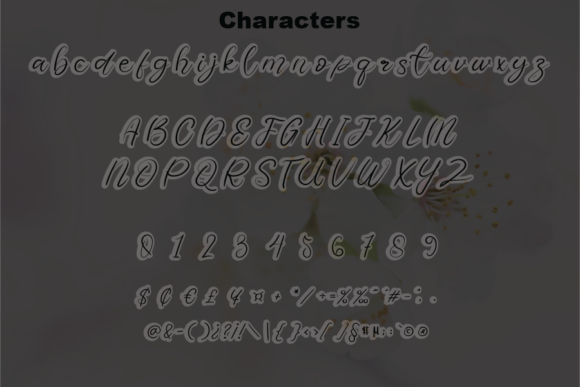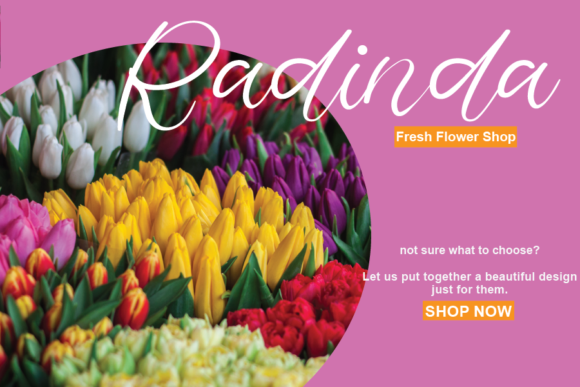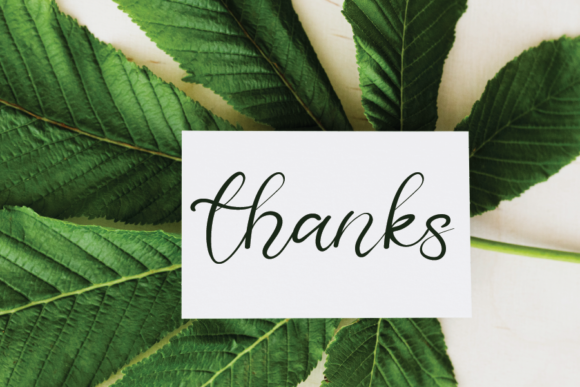
The Beauty of Rustic Fonts: A Designer’s Delight
I’ll never forget the time I was working on a project for a client’s wedding invitation. I had the design almost perfect, but something was missing – the right font. I scoured the internet, tried out countless fonts, but none seemed to fit the rustic, whimsical vibe I was going for. That’s when I stumbled upon the Beautiful Rustic font. It was love at first sight! ✨
An Honest Review of Beautiful Rustic
- ✨ Cute and flowing handwritten style: Beautiful Rustic has a unique, organic feel that adds a touch of warmth to any design.
- ✅ Highly versatile: This font can be used for a wide range of projects, from wedding invitations to craft tutorials.
- 💫 Easy to read: Despite its whimsical nature, Beautiful Rustic is surprisingly legible, even at smaller font sizes.
While Beautiful Rustic is an amazing font, it’s not perfect. Here are a few things to keep in mind:
- ⚠️ Limited use of uppercase letters: While the font does have uppercase letters, they don’t always match the flowy, cursive feel of the lowercase letters.
- 🤔 Some letters may require manual kerning: As with any handwritten font, some letters may need a bit of manual kerning to get them to look just right.
The Story Behind Beautiful Rustic
Beautiful Rustic was designed with the intention of creating a font that felt warm, inviting, and organic. The designer wanted to capture the essence of handwritten writing, with all its quirks and imperfections, and translate it into a digital font. The result is a font that feels like it was written with a pen and ink, rather than a machine.
Q: What is the best way to use Beautiful Rustic in my designs?
A: Beautiful Rustic is a versatile font that can be used for a wide range of projects, from wedding invitations to craft tutorials. Experiment with different sizes, colors, and OpenType features to find the look that works best for you.
Q: Is Beautiful Rustic suitable for body text?
A: While Beautiful Rustic is a beautiful font, it’s best suited for headlines, titles, and short blocks of text. For longer body text, you may want to choose a font that’s easier to read.